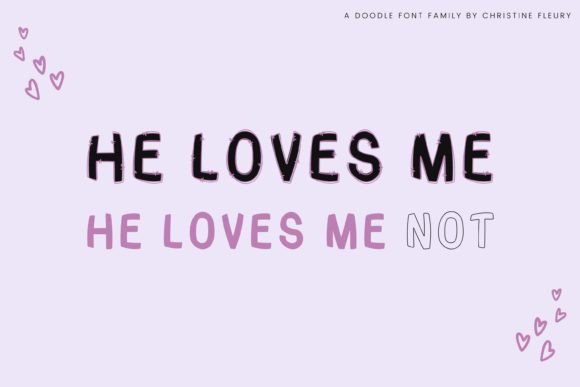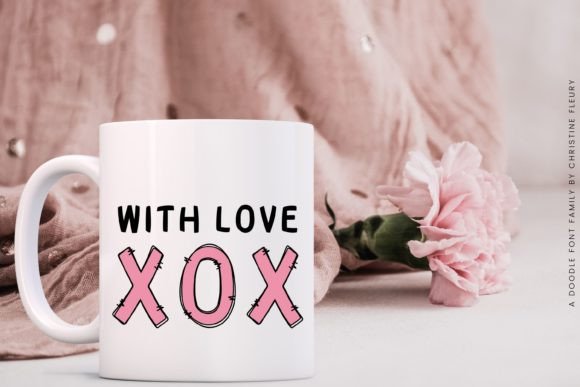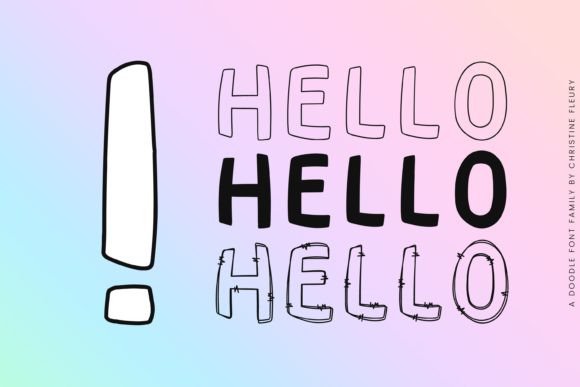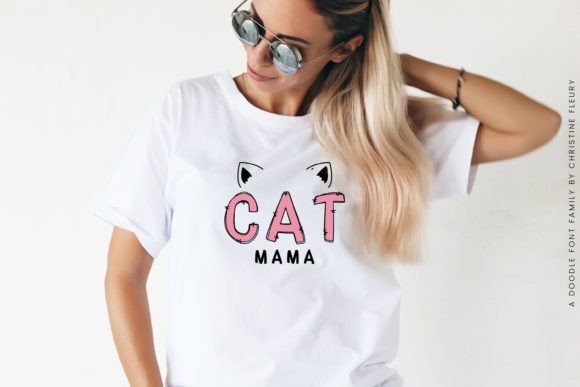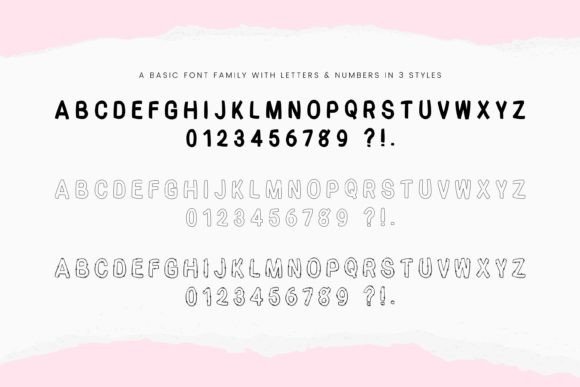
Hey Doodle Font
Hey Doodle is a hand-drawn doodle display font family in 3 styles. Perfect for sublimation, SVGs, logos, cards, quotes, branding, ornaments, mugs, prints, and more! Style your designs with doodle solid letters and use the plain outline or double doodle outline to decorate.